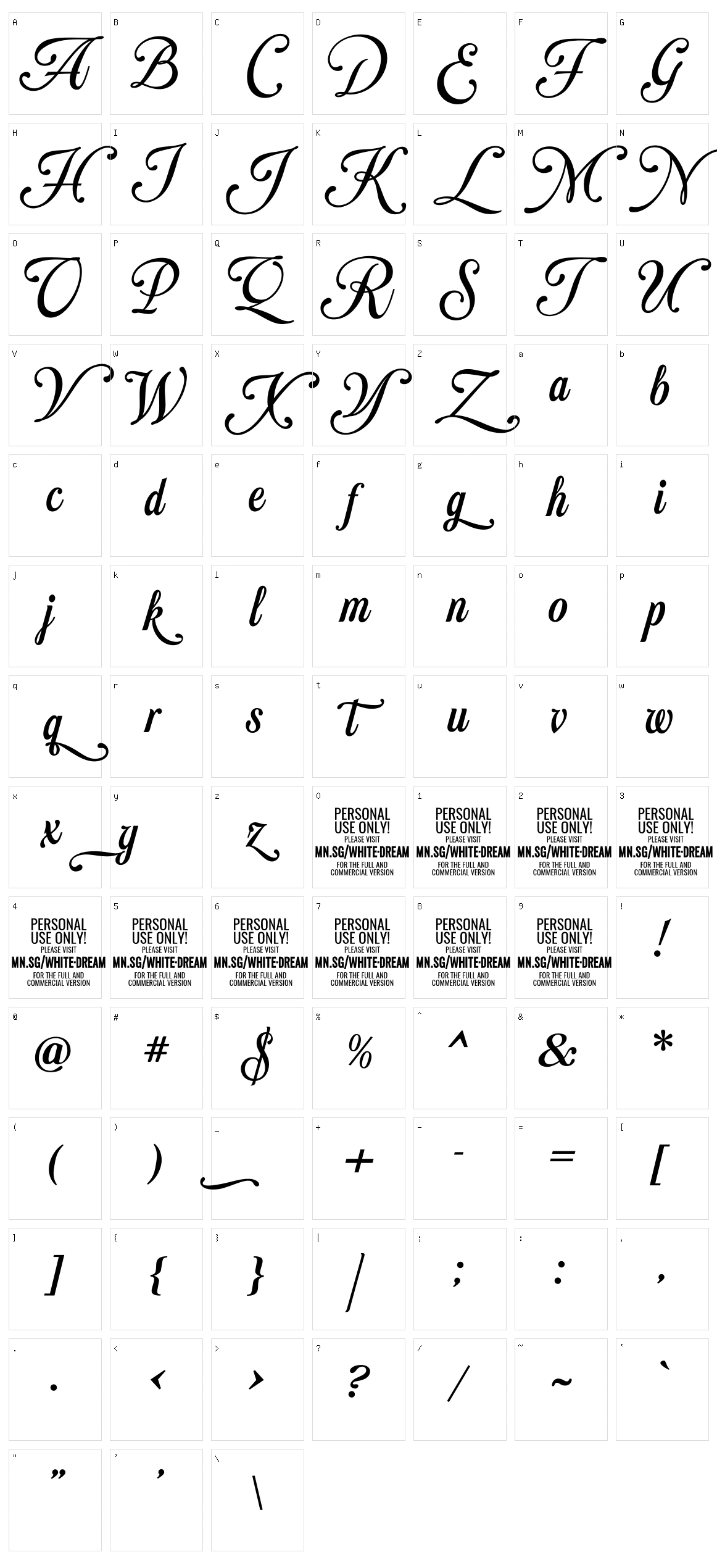
White Dream is a clean, swashy and beautiful script typeface.
It brings your thoughts to the magic setting in a wonderful story or a fantasy movie. This decorative logotype font is the ultimate Disney princess typeface; a font that reminds you of everything from Cinderella and Snow White to Anna & Elsa of Frozen.
With the highest quality and perfection, this is a four-style calligraphic family consisting of Regular, Thin and Swash versions. These style, and the wide selection of alternates, together guarantees that you can always use it to design a logo or headline that will satisfy its purpose.
Use underscore _ anywhere in a word to make a swash.
Example: Caste_la
Use multiple underscores for different swashes.
Example: Cinde__rella
White Dream is built with advanced OpenType functionality and has a guaranteed top-notch quality, containing stylistic and contextual alternates, ligatures and more features; all to give you full control and customizability.
It has extensive lingual support, covering all Latin-based languages, from North Europe to South Africa, from America to South-East Asia.
It contains all characters and symbols you'll ever need, including all punctuation and numbers.